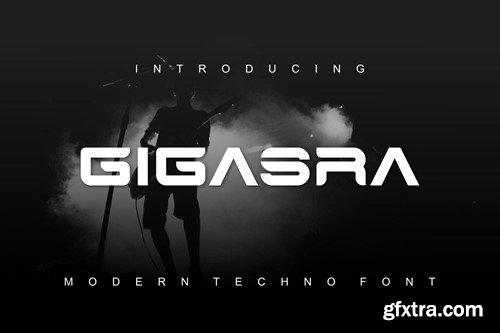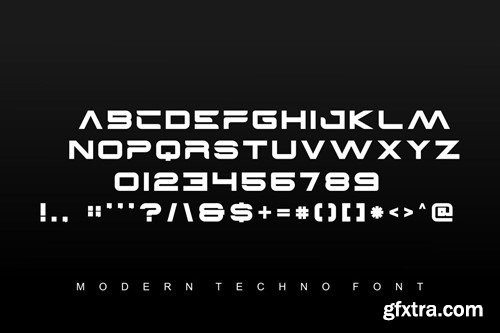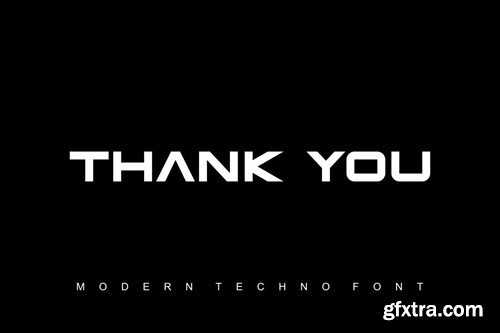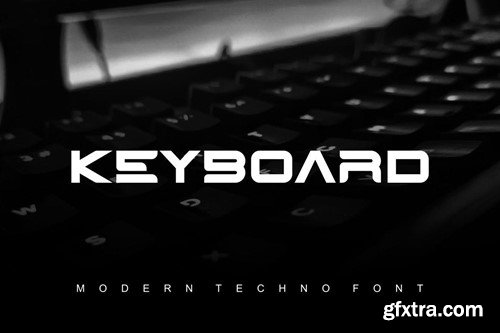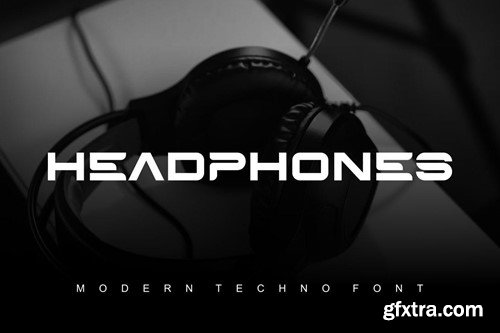
Gigasra Font
Introducing our new product Gigasra Font - Modern Font is a bold and authentic display font. The font is suitable for any branding project like logo, esport, and many more. outstanding in a wide range of contexts. availlable